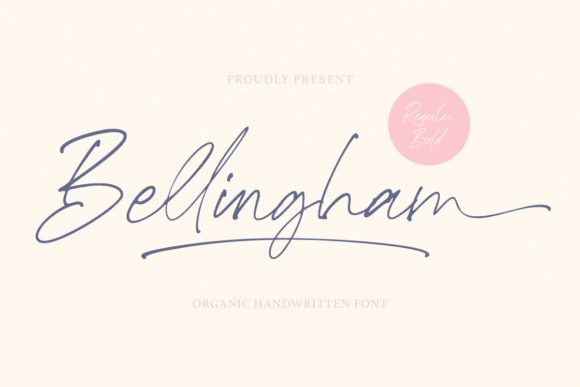
The Perfect Blend of Personality and Professionalism: Introducing Bellingham Script Font
As designers, we’ve all been there – staring at a blank page, trying to come up with the perfect font to capture the essence of our latest project. The cursor blinks, our minds go blank, and we’re left wondering where to start. But what if I told you there’s a font that can bring your creativity to life and make your words shine? Enter Bellingham Script Font, a stunning organic handwritten script font that’s perfect for adding a touch of personality to your designs.
This beautiful font is designed to add a human touch to your work, with a wide range of ligatures and swashes that make every word feel unique. Whether you’re creating a signature, packaging, logo, invitation, or novel, Bellingham Script Font is the perfect choice. Its versatility and charm make it a valuable asset for designers looking to elevate their work and make it stand out from the crowd.
Bellingham Script Font Key Features
- Font Style: Script Font with elegant, handwritten feel
- Unique Characteristics: Includes 300+ glyphs, 100+ ligatures, and 20+ swashes, making it ideal for creative and artistic designs
- Language Support: Supports over 200 languages, including Latin, Cyrillic, and Greek scripts
Bellingham Script Font Review
I’ve had the chance to work with Bellingham Script Font, and here’s my honest take.
- Calls attention: Bellingham Script Font is a beautiful, eye-catching choice for headings and titles. Its elegant curves and flourishes make it perfect for capturing attention.
- Personal touch: The script font’s cursive feel gives it a warm, personal touch that’s ideal for branding and design projects where you want to connect with your audience on a deeper level.
- High-quality rendering: The font’s rendering is crisp and clean, making it suitable for both digital and print media.
- Readability: While Bellingham Script Font is beautiful, it can be challenging to read, especially in large blocks of text. It’s best used in smaller quantities.
- Lack of versatility: The font’s script style may not be suitable for projects that require a more modern or minimalist look.
Overall, Bellingham Script Font is a great choice for designers who want to add a touch of elegance and sophistication to their projects. While it has its limitations, it’s a beautiful and eye-catching font that’s sure to make a statement.
The Bellingham Script font is ideal for:
- Photography and art titles
- Event and conference signage
To get the most out of the Bellingham Script font, try:
- Pairing it with bold or sans-serif fonts for contrast
- Using it in combination with
Alternatives to Bellingham Script Font
Carolyna Pro is a modern script font with a touch of elegance and sophistication. It is perfect for designers who want to create a luxurious and high-end feel in their designs. Carolyna Pro has a similar feel to Bellingham Script Font, but with a more refined and polished look.
Comparison: While both fonts have a similar script style, Carolyna Pro has a more elegant and refined look, making it suitable for high-end designs. Bellingham Script Font has a more playful and casual feel.
Alex Brush is a beautiful and elegant script font that is perfect for designers who want to create a sophisticated and luxurious feel in their designs. It has a similar feel to Bellingham Script Font, but with a more refined and polished look.
Comparison: While both fonts have a similar script style, Alex Brush has a more elegant and refined look, making it suitable for high-end designs. Bellingham Script Font has a more playful and casual feel.
Great Vibes is a fun and playful script font that is perfect for designers who want to create a casual and relaxed feel in their designs. It has a similar feel to Bellingham Script Font, but with a more energetic and lively look.